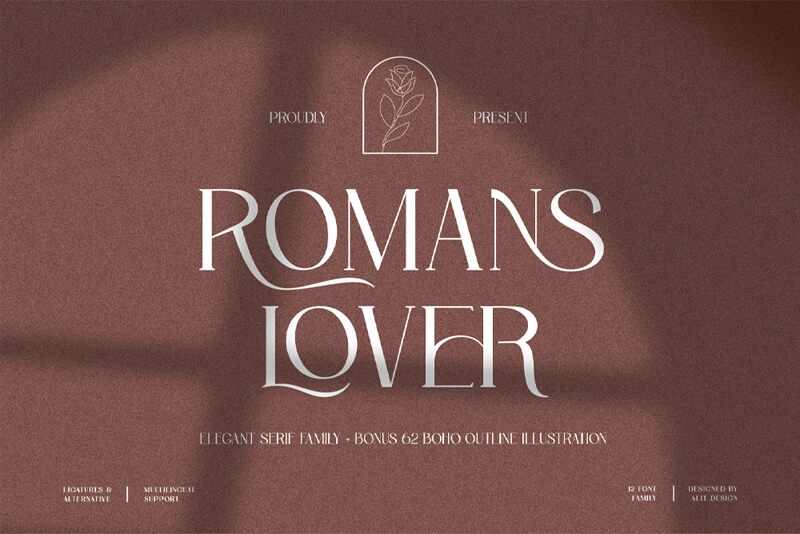
The Roman Lovers font, designed by Alit Design, is a stunning and elegant serif typeface. With its smooth curves and dynamic style, this font is perfect for projects that require a touch of sophistication. Its semi-light weight adds an air of delicacy to any design.Whether you're working on wedding invitations, luxurious branding materials, or high-end fashion editorials, the Roman Lovers font will elevate your project to new heights.
Its versatility allows it to be used in both design and non-design programs, making it accessible to everyone. With 573 glyphs and numerous alternative options, this font offers endless possibilities for creative expression. Additionally, the Roman Lovers font family includes a range of weights from Thin to Heavy, providing flexibility for both header and description text.
Capture attention and evoke elegance with the Roman Lovers serif typeface - the perfect choice for any project that requires a touch of refined beauty.